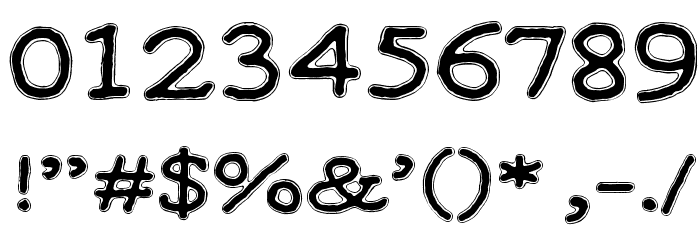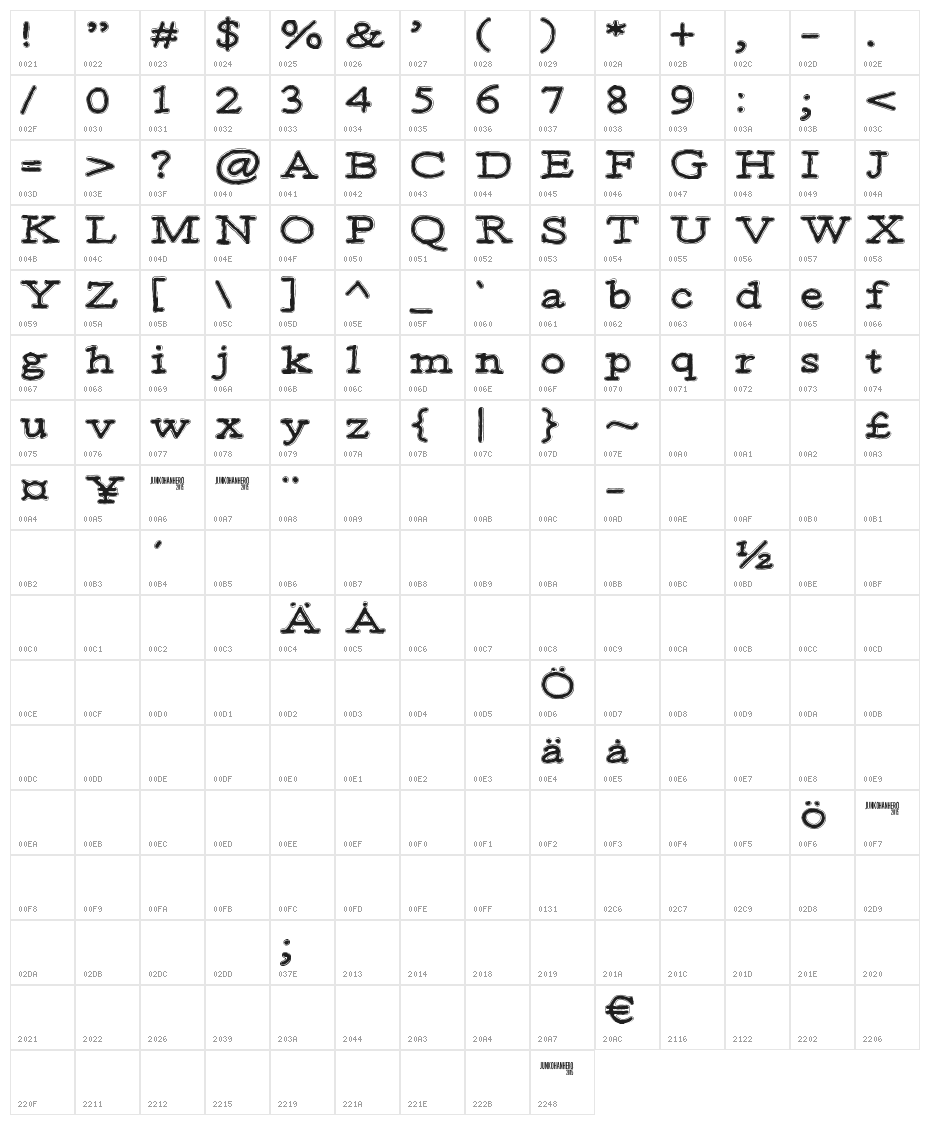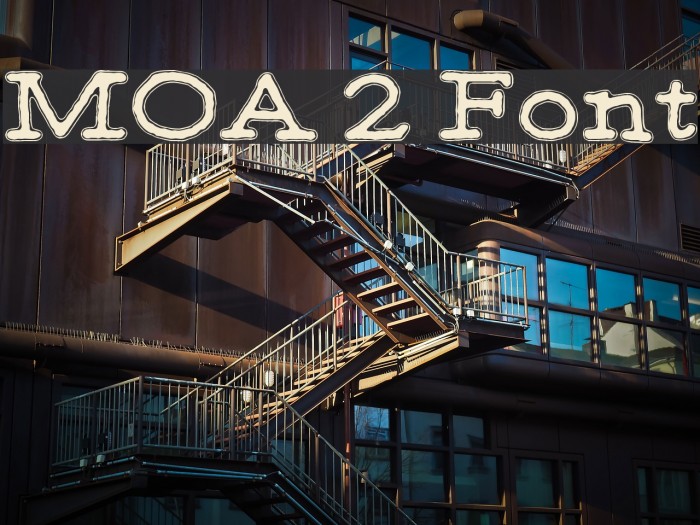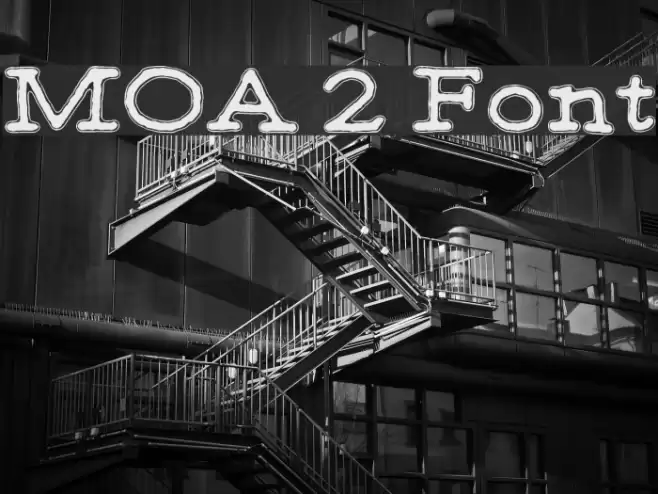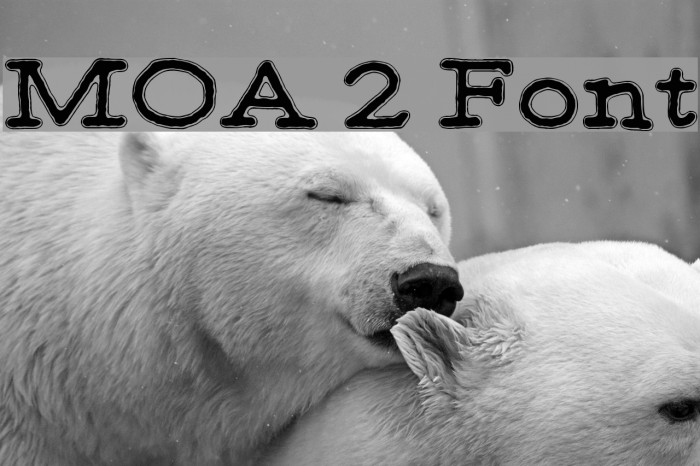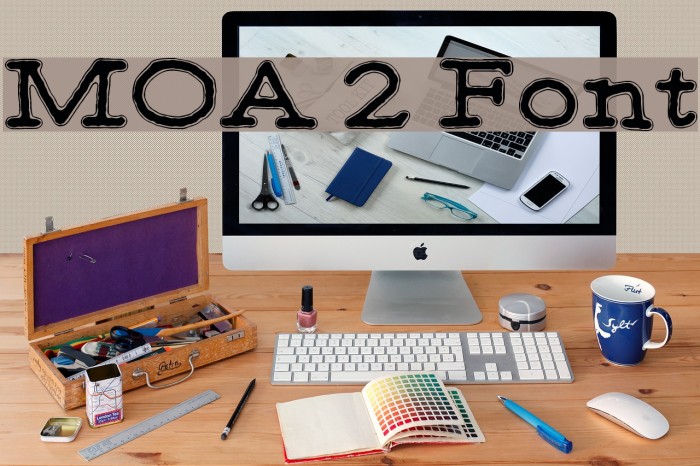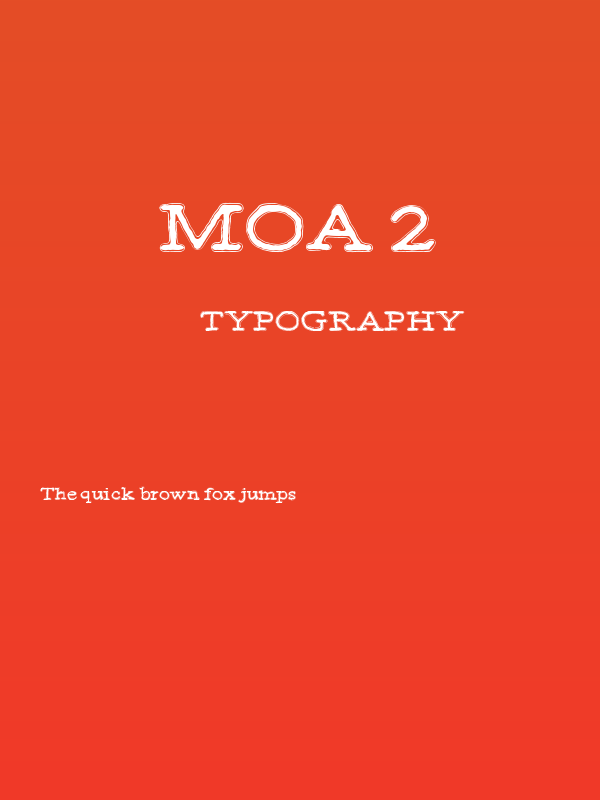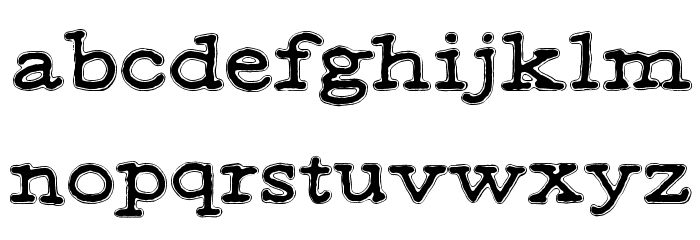
MOA 2 Font
MOA 2 Description
This font features a bold, decorative style with a distinct outline around each character, giving it a three-dimensional appearance. The uppercase and lowercase letters are consistent in their boldness, with rounded edges that soften the overall look. The numerals and special characters maintain this style, ensuring a cohesive appearance across all glyphs. The font's playful and eye-catching design makes it suitable for creative projects that require a standout typeface.
| Proposed Projects | Ideal for posters, logos, children's books, and any design requiring a fun and engaging typeface. |